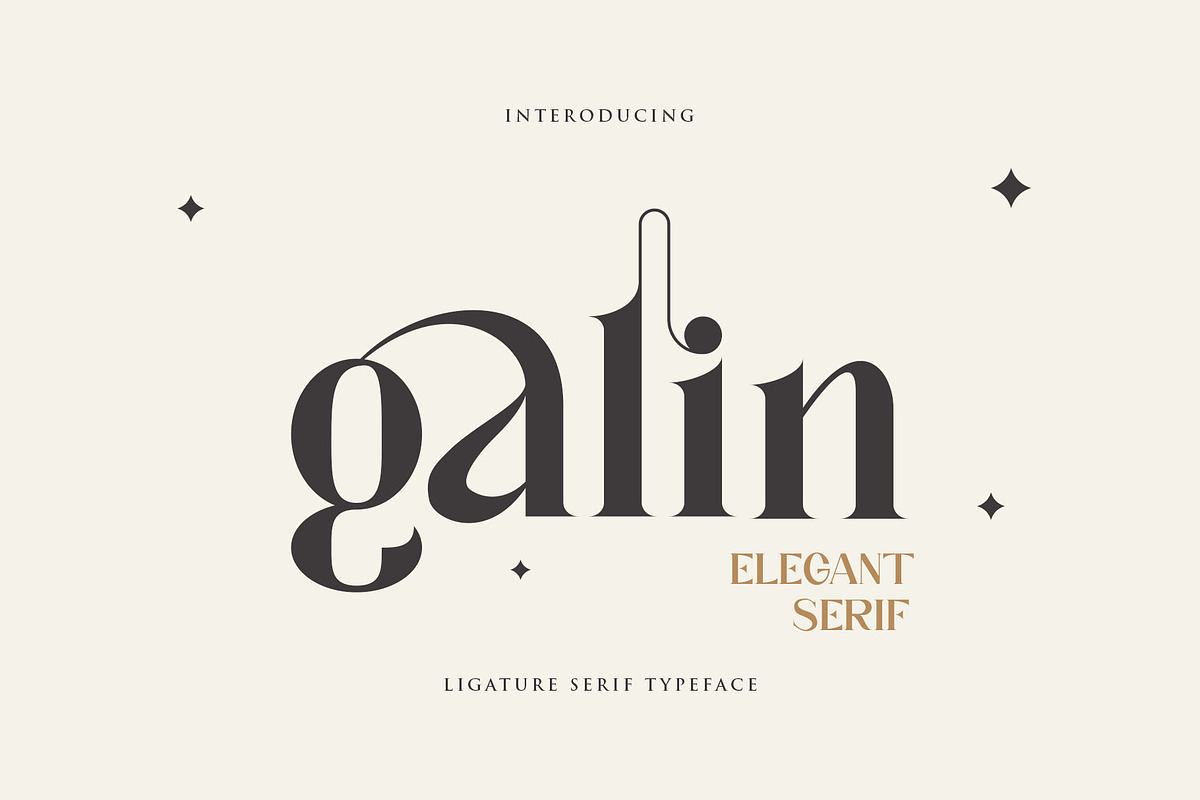
Galin Modern Ligature Serif Typeface Free Download
Sophisticated, stylish, and full of personality, Galin Modern Ligature Serif Typeface Free Download is a contemporary serif font that blends classic elegance with modern design. Perfect for branding, editorial layouts, logos, invitations, and high-end packaging, this typeface offers a perfect balance of readability and creativity.
With its sharp, clean serifs and unique ligatures, Galin brings a refined, artistic touch to any design. Whether you're working on a luxury brand, a creative project, or an elegant marketing campaign, this font elevates your typography with its distinctive flair.